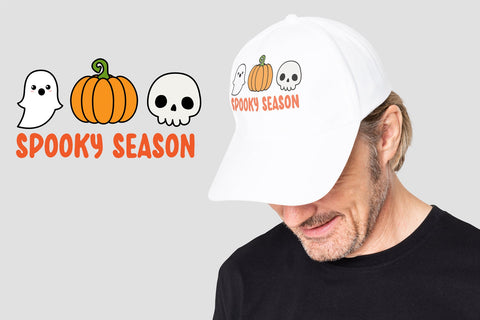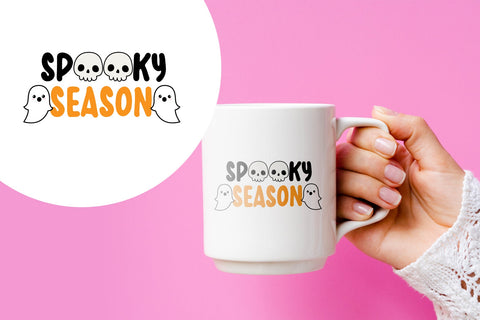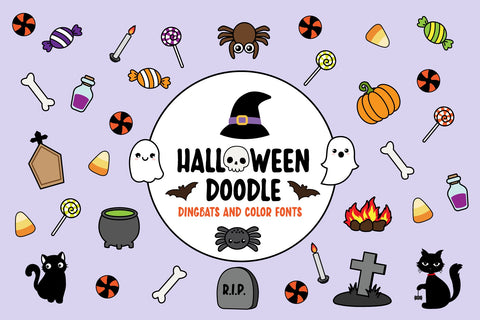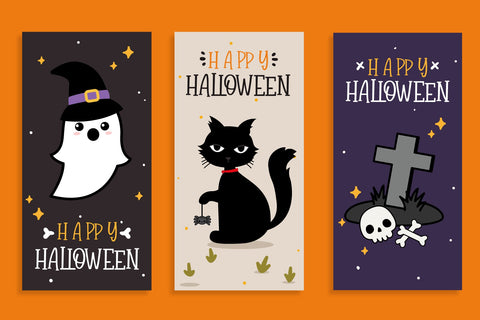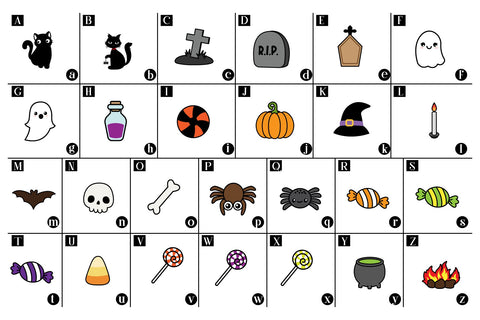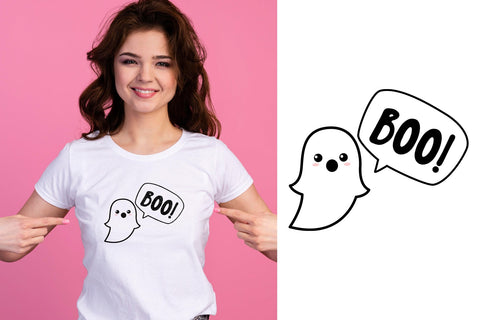
Halloween Doodle Dingbats&Color font
Halloween Doodle is a Dingbats font designed in the form of a cute Halloween-themed colored font that you can easily use. Use it to create beautiful invitations. art that is beautiful Eye-catching social media posts and beautiful greeting cards Add this beautiful font to each of your creativity. And notice how this font makes it stand out.